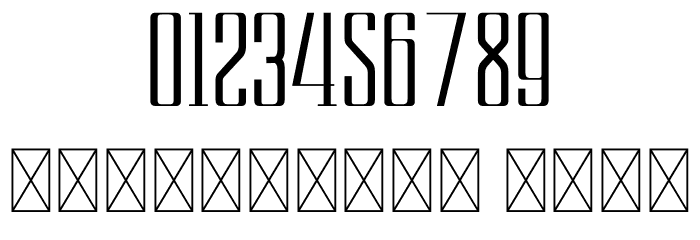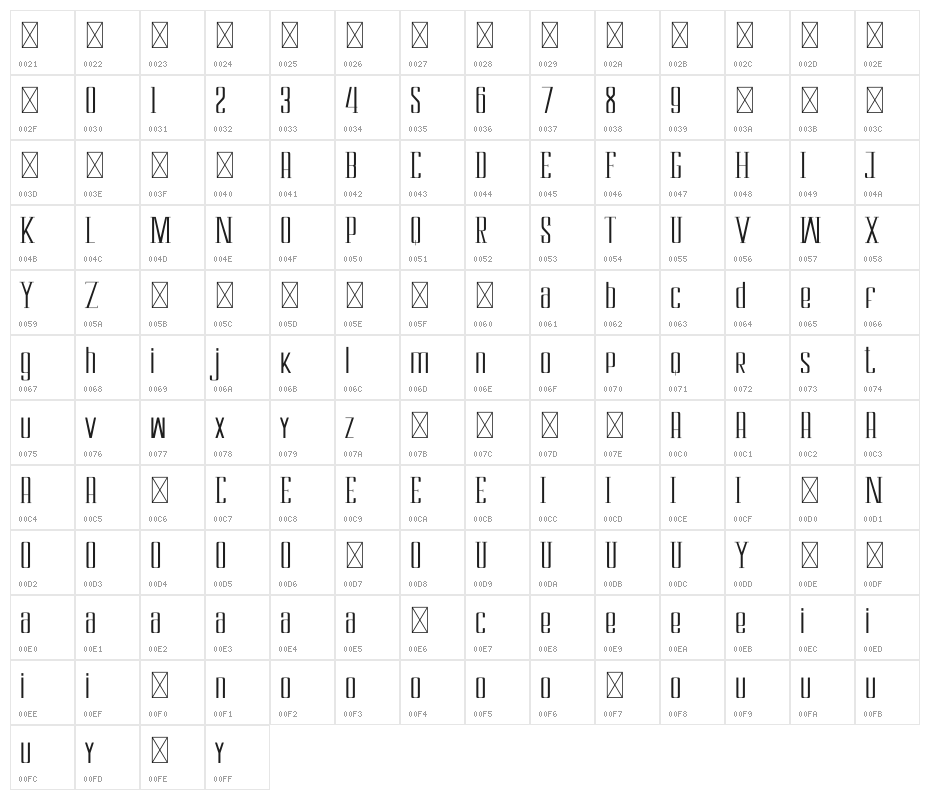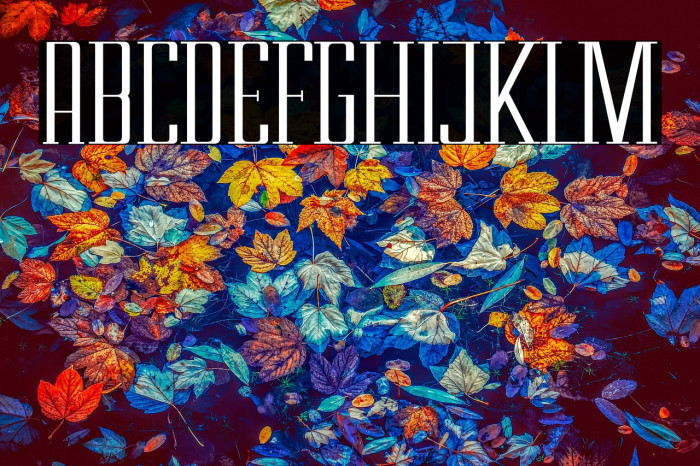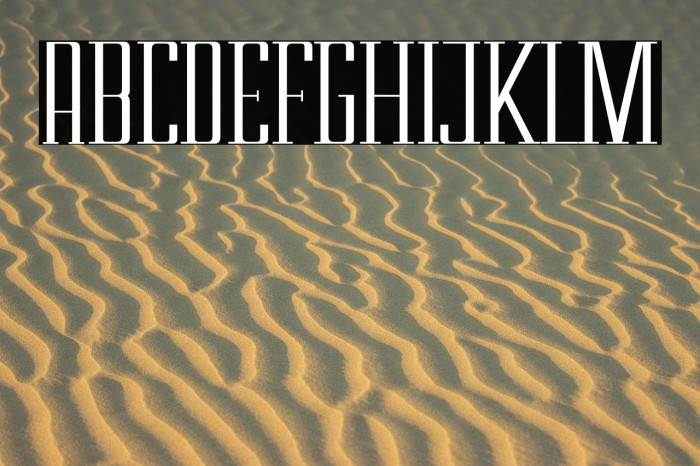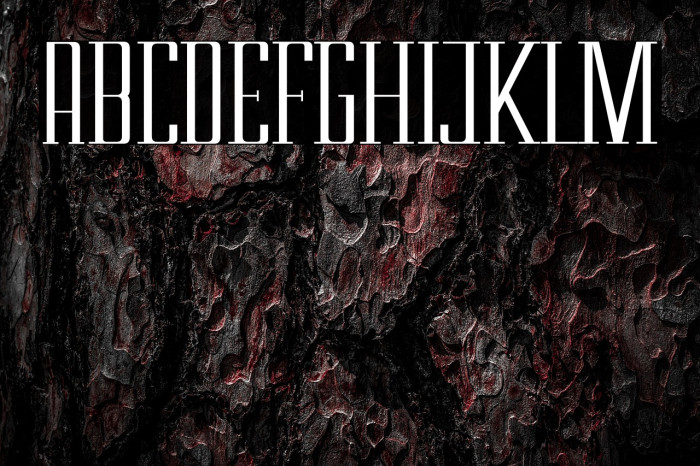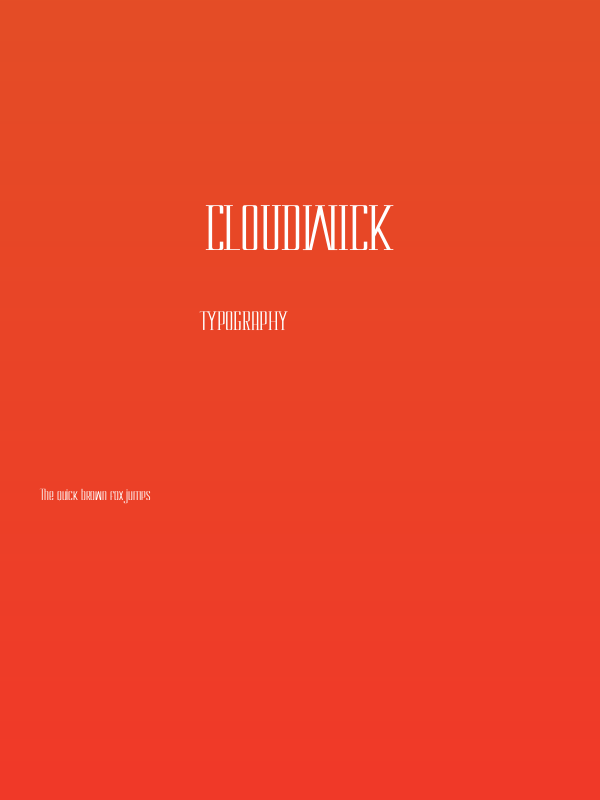
Cloudwick Font
This font features a tall and narrow design with a modern and sophisticated appearance. The uppercase letters are elongated with sharp, clean lines, giving a sense of elegance and formality. The lowercase letters maintain the same narrow structure, ensuring consistency throughout the typeface. The numbers are distinct and follow the same vertical emphasis, making them easily readable. Special characters are designed to complement the overall style, maintaining the sleek and elongated look. This font is ideal for projects that require a touch of modernity and elegance.
A tall, narrow font with a modern and elegant style.
- Font: Cloudwick
- Proposed Projects: Ideal for luxury branding, fashion magazines, high-end product packaging, and modern web design.
- Category: Modern
- Use Case: Headlines, Logos, Branding